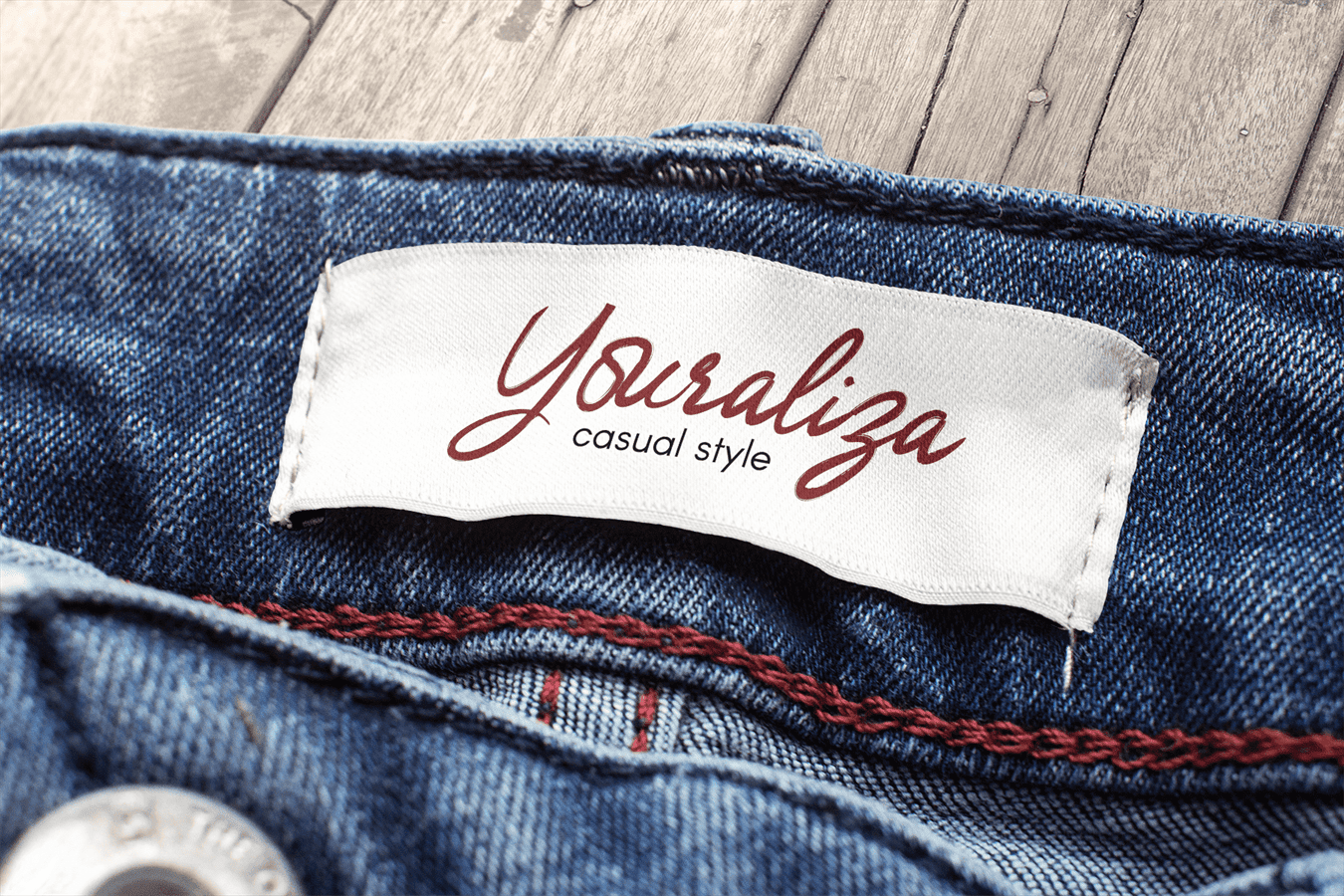
Versatile Azalea Font
Versatile Azalea Brush Font
This is textured brush font using a contemporary approach to design, equipped with a lot of underline swashes. Versatile Azalea is suitable for a number of display or decorative designs. It will add a luxury spark to any design project that you wish to create! Fall in love with its incredibly versatile style and use it to create spectacular designs!
FEATURES
– Uppercase and Lowercase letters
– Numbering and Punctuations
– Multilingual Support
– Ligatures
– Underline swashes